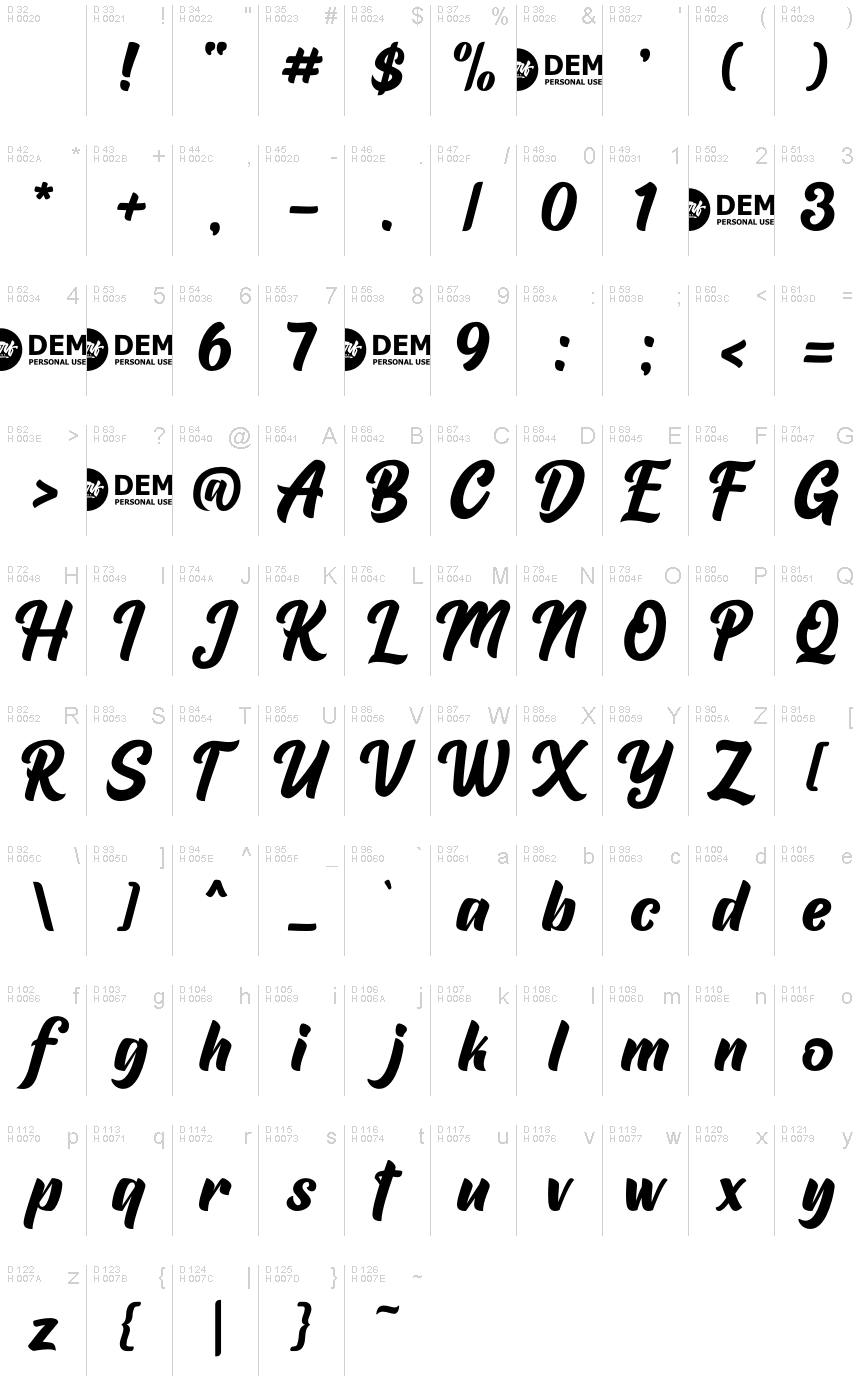
Banthani Demo
Banthani font is made by Nurf Designs. Created with lovely brush style, this bold and sophisticated font in cursive features smooth curves, flowing lines and connected high contrast letters. Handlettered brush script font in modern calligraphy style, it will look stunning on any of your special projects like: quotes, items from kids' stores, broadsheets and many more.
To make all lowercase letters connect perfectly in this brush script open type must be turned on! Best used for logos, invitations (especially weddings), greeting cards (for example birthday cards), titles that want to stand out/that need elegance-and-style etc., Banthani will elevate every creative project with an artistic flair!